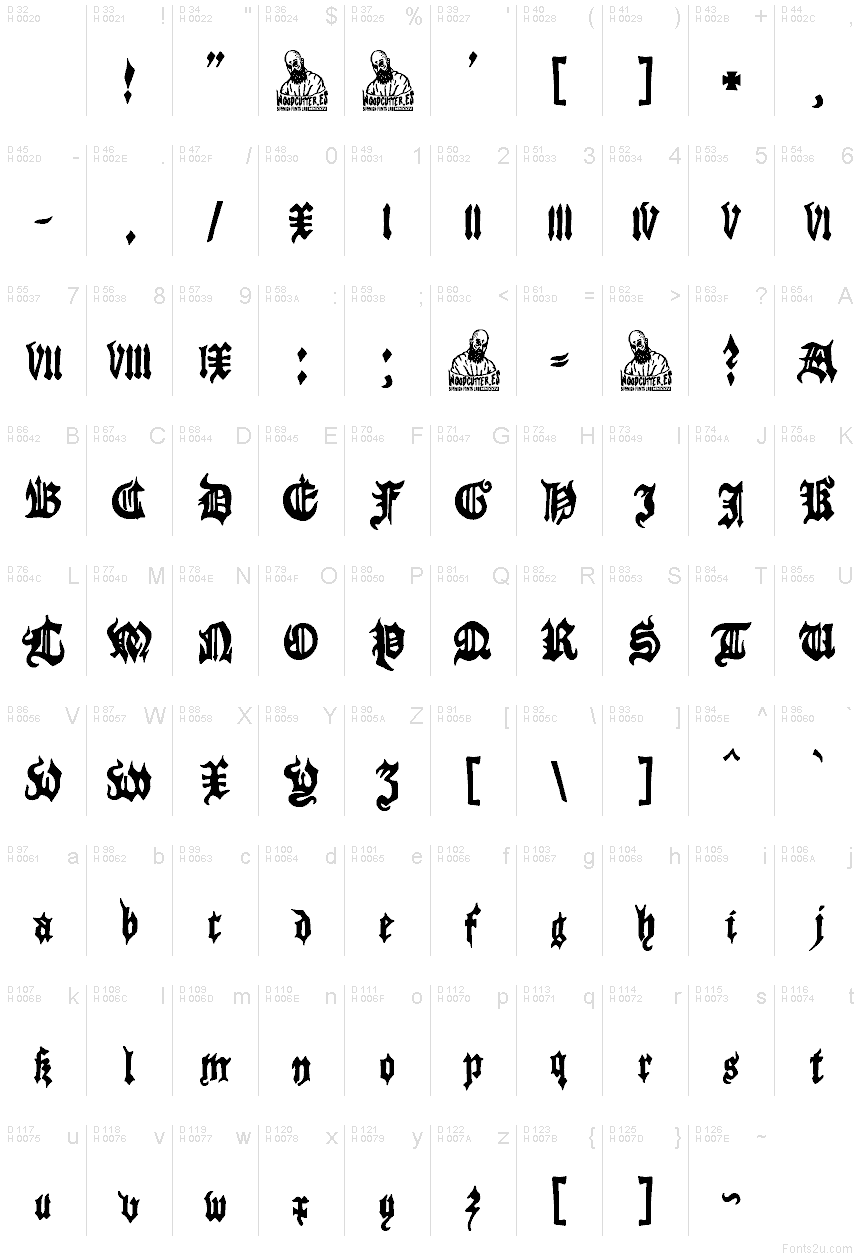
Gothic Marriage
Gothic Marriage font is designed by Woodcutter as a dramatic presence inspired by a medieval and historic influence. The free gothic font includes intricate detailing and ornate flourishes in narrow lettering which comes together to present a perfect display of harmony.
The masterfully crafted font works well on logos, posters, flyers, video games cover pages, CDs, magazines headers and subheadings. Moreover, Gothic Marriage can be used on website designs either for buttons headings or even main titles.